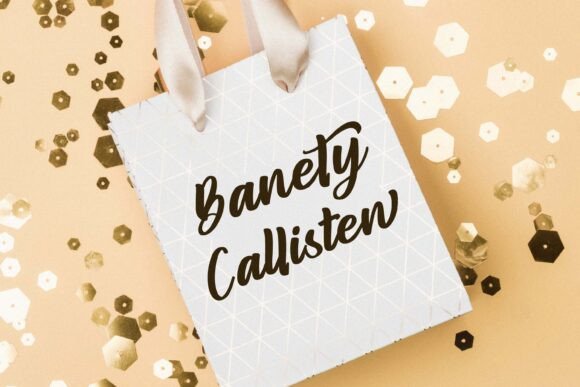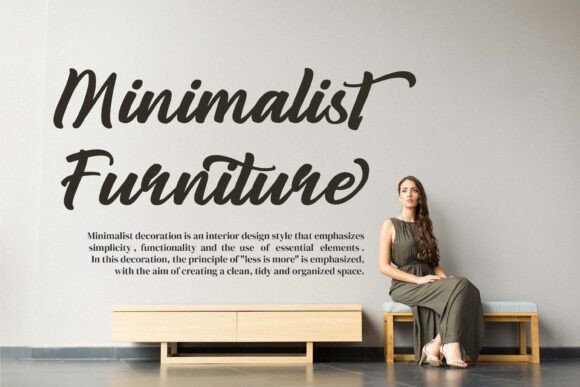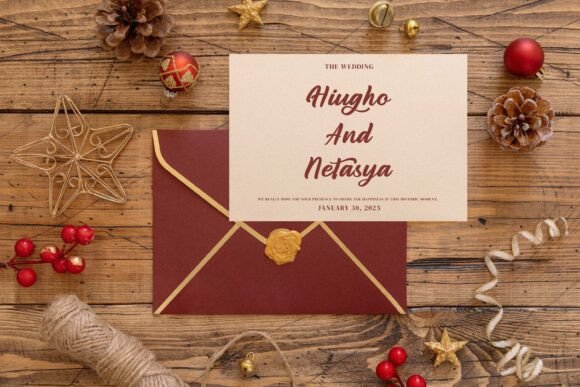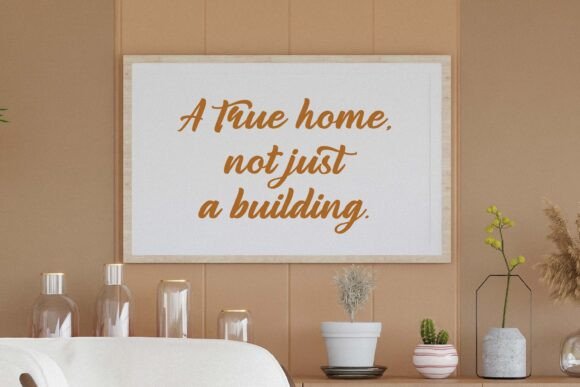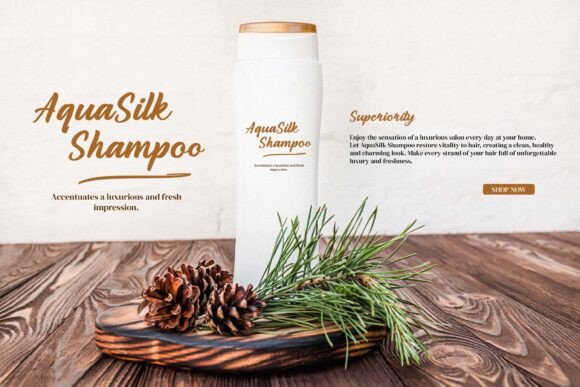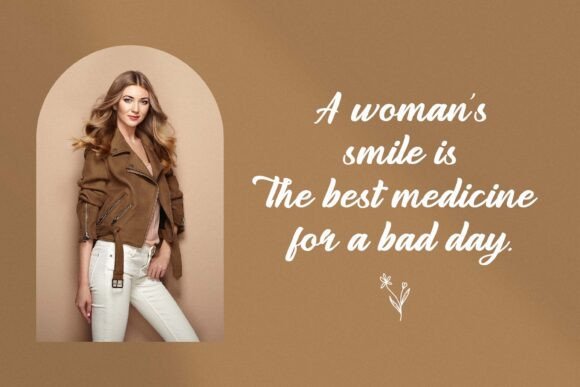
The Elegant Charm of Fionetta Font: A Designer’s Delight
I still remember the time I was working on a wedding invitation project, and my client asked for a font that exuded elegance and sophistication. I scoured the internet, tried countless fonts, but nothing seemed to fit the bill. That was until I stumbled upon Fionetta Font. Its beautiful calligraphy letters and flowing curves instantly captured my attention, and I knew I had found the perfect fit. In this article, I’ll share my love for Fionetta Font, its features, and how to make the most of it in your designs.
An Honest Review of Fionetta Font
What I Love About Fionetta Font ✨
- 💕 Elegant and flowing letters that add a touch of sophistication to any design
- 🎨 A handmade, artistic feel that gives your designs a unique personality
- 🖌️ Perfect for wedding invitations, logos, greeting cards, and more
While Fionetta Font is a stunning addition to any design, there are a few things to keep in mind:
- 🤔 Some users may find the font a bit challenging to read at smaller sizes, so it’s best to use it for headlines or titles
- ⚠️ Limited availability of stylistic alternates, which may limit its versatility in certain design projects
The Backstory of Fionetta Font
Fionetta Font was designed by a talented type designer who wanted to create a font that captured the essence of traditional calligraphy. Inspired by the flowing curves and elegant letters of handwritten scripts, Fionetta Font was born. Its creator aimed to craft a font that would add a touch of sophistication and whimsy to any design.
| Font Name | Fionetta Font |
| Author | Goresan Studio |
Q: What is Fionetta Font best used for?
A: Fionetta Font is perfect for wedding invitations, logos, greeting cards, and any design that requires an elegant, sophisticated touch.
Q: Is Fionetta Font difficult to read?
A: While Fionetta Font is a script font, it’s generally easy to read, especially at larger sizes. However, it may be challenging to read at smaller sizes, so it’s best to use it for headlines or titles.